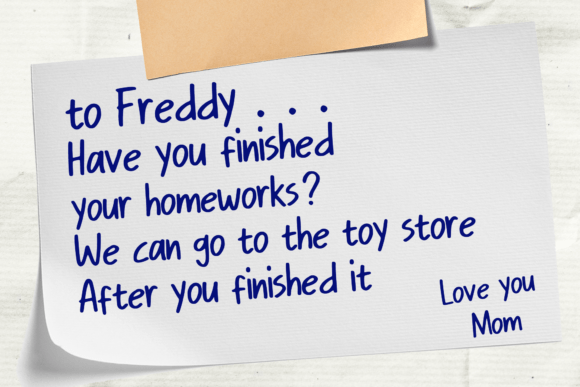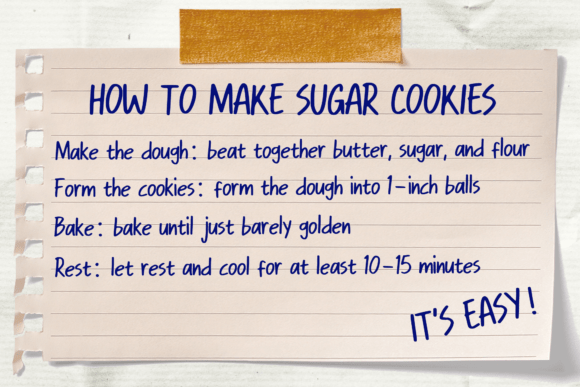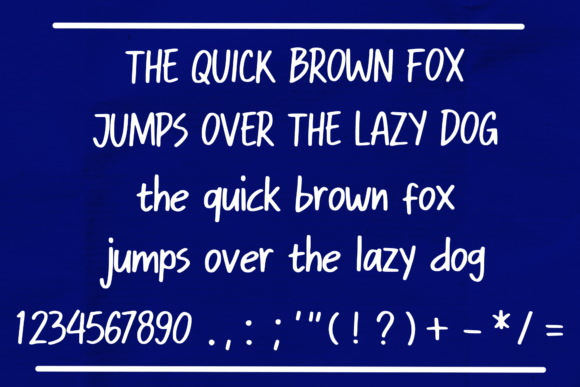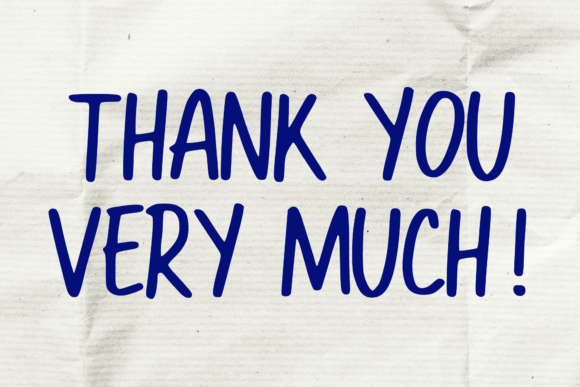
Unleash Your Creativity with the Ballpoint Strokes Font
Do you remember the excitement of doodling with a ballpoint pen as a kid? The satisfying scratch of the ink flowing onto the paper, the endless possibilities of creating something new and unique? For many of us, that creative spark never truly fades, and Ballpoint Strokes Font is here to reignite it. This versatile pen font is designed to bring a splash of fun to your everyday typography needs, elevating your creativity to new heights.
Whether you’re working on a vibrant sticker design, a captivating t-shirt graphic, or a crisp logo, Ballpoint Strokes Font is the perfect tool to transform your ideas into reality. Its unique charm adds a pop of coolness to your designs, making them stand out in a crowded market. With Ballpoint Strokes Font, you’ll be able to create stunning magazine covers, comic books, and cartoon sketches that are sure to captivate your audience.
Key Features of Ballpoint Strokes Font
- Font Style: Ballpoint Strokes is a handwritten font with a unique, expressive style that mimics the look of ballpoint pen strokes.
- Character Count: The font includes over 200 characters, including uppercase and lowercase letters, numbers, and punctuation marks.
- Unique Characteristics: The font’s unique ballpoint pen stroke effect creates a dynamic, hand-drawn look that adds a touch of personality to any design.
Designer Review: Ballpoint Strokes Font
Overall, I think the Ballpoint Strokes Font is a decent choice for designers looking for a unique, handwritten feel. It’s great for creating eye-catching headings or adding a personal touch to text-heavy content.
What Works Well: ✨
- Unique and playful feel that’s perfect for creative projects.
- Well-suited for headings, titles, and short blocks of text.
- Supports a wide range of languages, making it a great option for global audiences.
- Works well in digital formats, including web and social media.
- Limited legibility in smaller font sizes, which can make it difficult to read.
- Not ideal for body text, as it can be overwhelming and difficult to scan.
- May not be suitable for formal or professional applications, as it can come across as too casual.
- May require additional formatting to achieve desired aesthetic.
In terms of overall impression, I’d say the Ballpoint Strokes Font is a solid choice for designers who want to add some personality to their projects. However, it’s essential to use it judiciously and in the right context to avoid overwhelming the viewer. With some careful planning and formatting, this font can be a real showstopper.
Ballpoint Strokes Font is perfect for:
- Handwritten-style titles and headings.
- Informal or casual designs, such as social media graphics or blog posts.
- Adding a personal touch to digital products, such as e-books or presentations.
Alternatives to Ballpoint Strokes Font
Great Vibes is a beautiful, handwritten script font perfect for creating a friendly and approachable atmosphere. It’s ideal for use in invitations, greeting cards, and other materials where a personal touch is desired. Great Vibes has a more elegant and refined feel compared to Ballpoint Strokes Font, which has a more casual and playful vibe.
Pacifico is a modern, elegant script font that’s great for use in high-end designs, such as luxury branding, packaging, and advertising materials. It has a more sophisticated and refined feel compared to Ballpoint Strokes Font, which makes it suitable for use in professional and corporate settings.